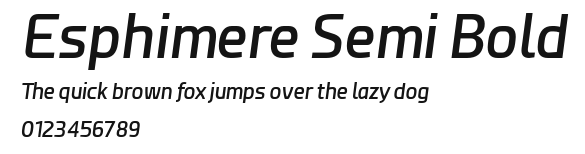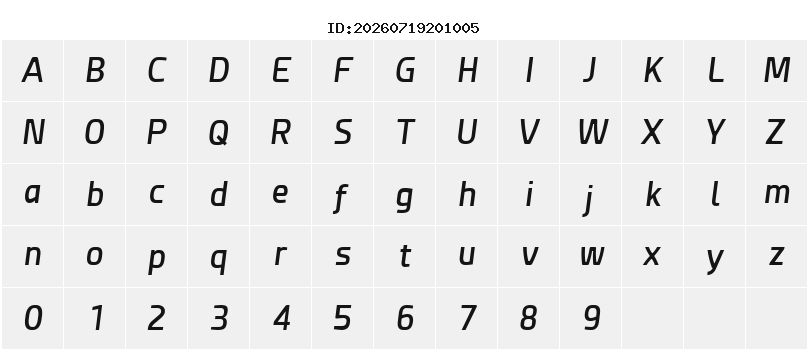
Esphimere Semi Bold Preview
• Font Name: Esphimere Semi Bold
• Designer: Dichi
About Esphimere Semi Bold.otf
Esphimere Semi Bold.otf is a modern, elegant sans-serif font designed for ultimate readability and visual harmony. Perfect for branding, headlines, web design, and print materials.